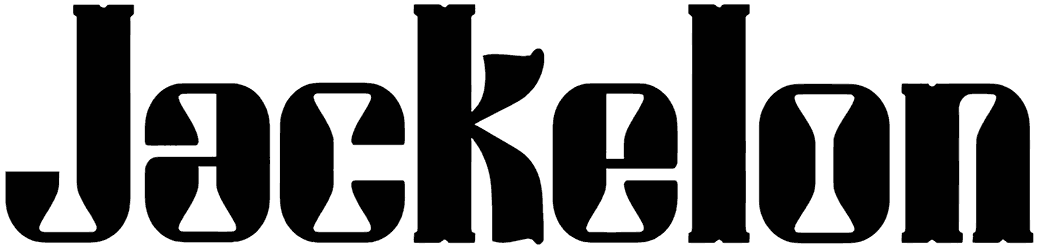
Jackelon Font
Sometimes you need a less-seen font to impact your audience, and the Jackelon font is an appropriate choice. This fancy font’s bold and wide letters grab your attention at first glimpse. You may use this font for several cases, such as posters, flyers, advertisements, and commercial packaging.
This whiskey font’s letters have a bulky industrial style, sending a powerful vibe. Moreover, their edges are rounded and soft, entertaining the viewers; however, this font does not support numbers and symbols.